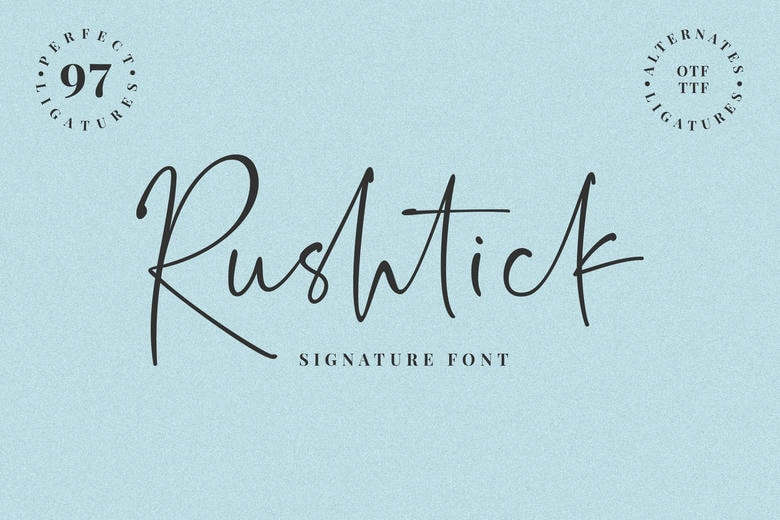
Rushtick Font
Rushtick Signature Font is a contemporary signature type that has a relaxed feeling of genuine handwriting. The typeface is one personal and fashionable one to your designs with its casual yet sophisticated lines.
Ideal to brand, use as a logo, as a post on social media, in a wedding brochure, and packaging, Rushtick offers a type of hand-made elegance that is not only authentic but also modern.
Rushtick Signature Font